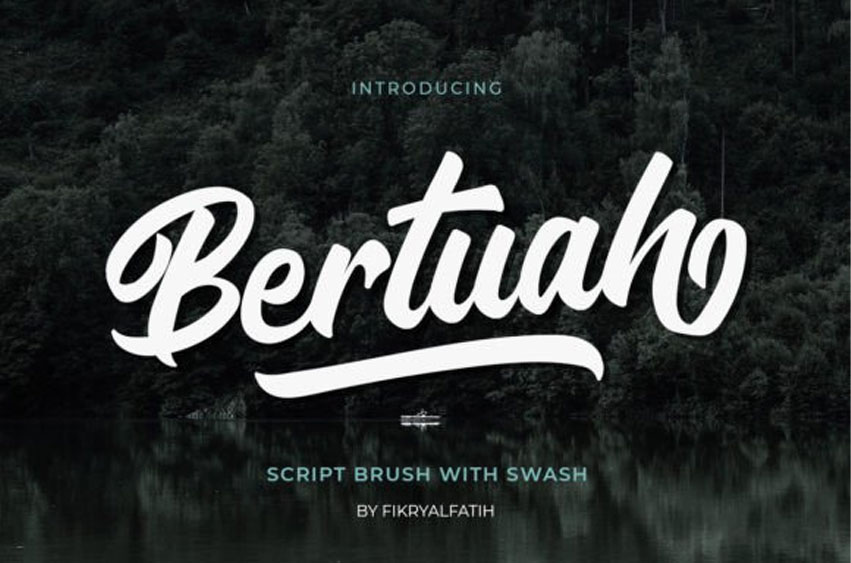
Bertuah Font is a natural handwriting script typeface. Very suitable to be used as a headline, Instagram post, stories, logos, magazines, books, greeting/wedding cards, packaging, fashion, makeup, stationery, novels, labels, or any type of advertising purpose.